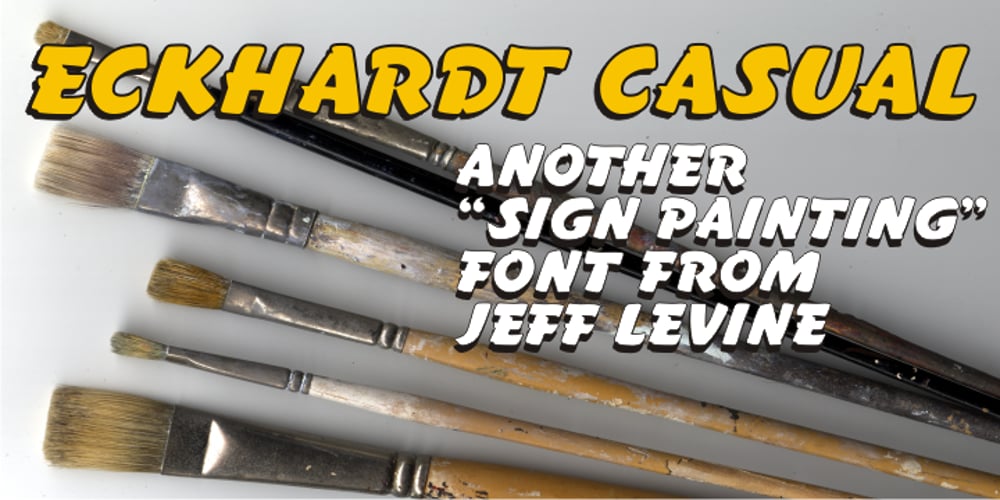
Eckhardt Casual JNL
Eckhardt Casual JNL font
Eckhardt Casual JNL Font Family was designed by Jeff Levine and published by Jeff Levine. Eckhardt Casual JNL contains 1 styles and family package options. Eckhardt Casual JNL was modeled from an example of poster lettering found in a 1941 Speedball® Lettering Pen instruction book. The font is named in honor of Jeff Levine’s good friend, the late Albert Eckhardt, Jr. (owner of Allied Signs in Miami, Florida until his passing) and is one of a number of releases with a “sign painter” theme that comprise the “Eckhardt Series”.